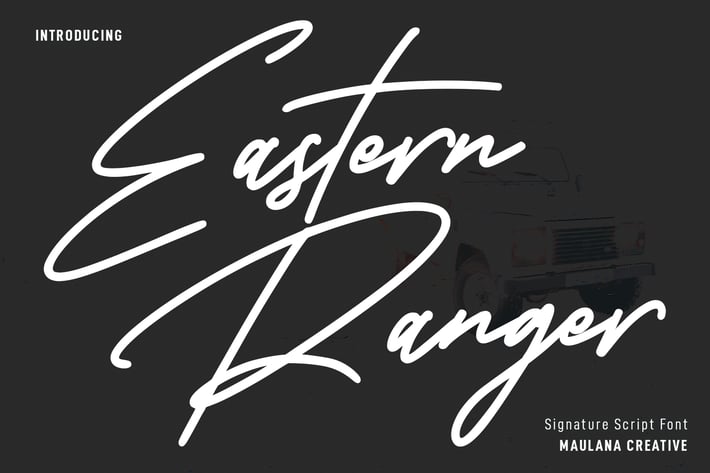
Eastern Ranger Signature Script Font
Eastern Ranger is a Casual super slanted Script font. With mono-line consist stroke, fun character with a bit of ligatures. To give you an extra creative work. Eastern Ranger font support multilingual more than 100+ language. This font is good for logo design, Social media, Movie Titles, Books Titles, a short text even a long text letter and good for your secondary text font with sans or serif. Make a stunning work with Eastern Ranger font.